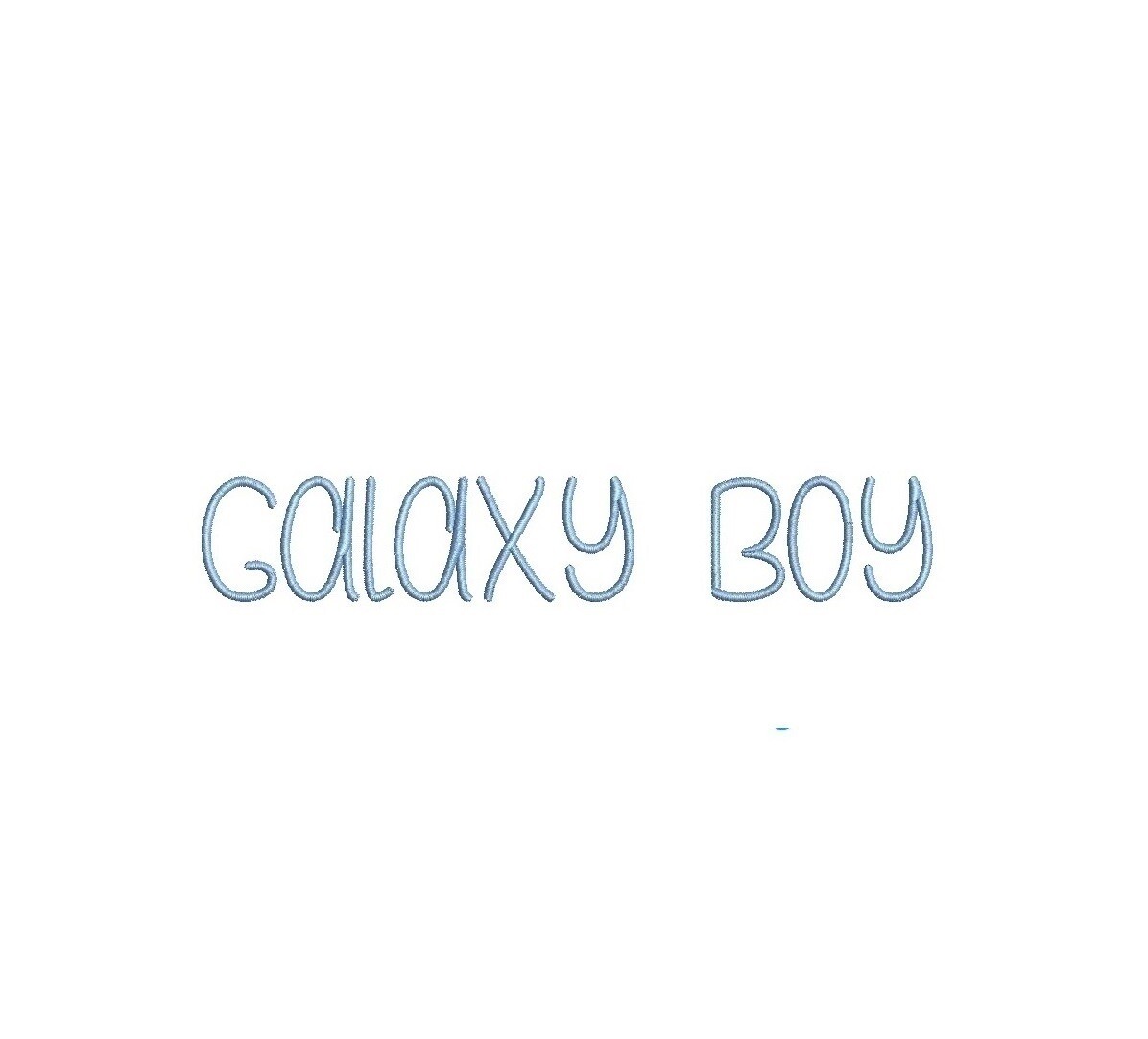
Step into the cosmic world of Galaxy Boy Regular ESA font, where imagination knows no bounds. This futuristic and captivating typeface elevates your designs to interstellar heights. Crafted with precision and attention to detail, this premium font guarantees a seamless and enjoyable design experience. Compatible with Wilcom Studio e4.5.6 and Hatch 3 versions and up, it ensures smooth embroidery creation. Whether it's sci-fi projects, futuristic branding, or cosmic illustrations, Galaxy Boy Regular ESA font adds an otherworldly charm to any endeavor. Embrace its stellar allure and let your creativity reach new galaxies. Don't miss out on this stellar gem; get it now and design the future.